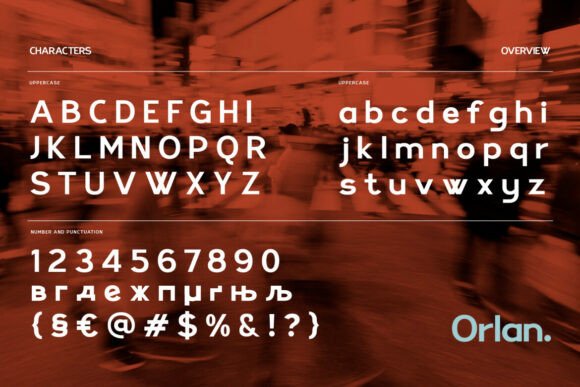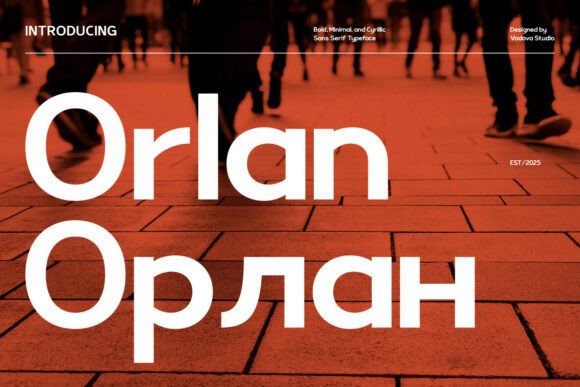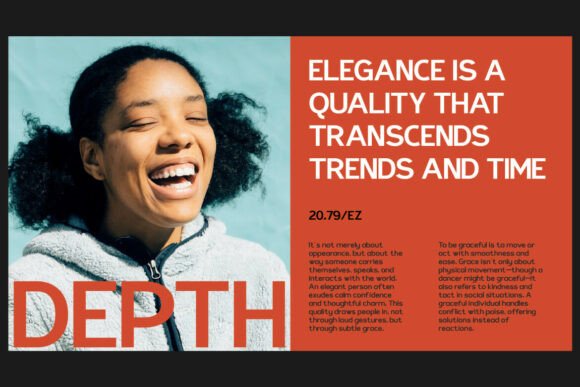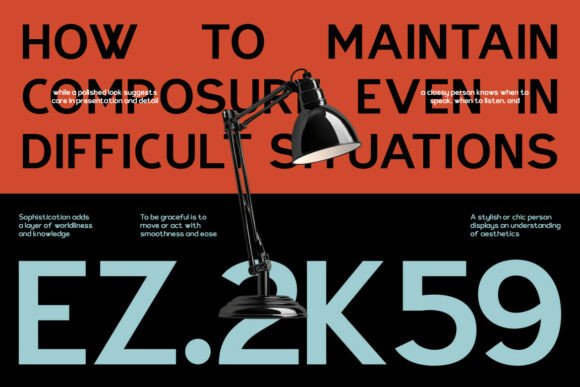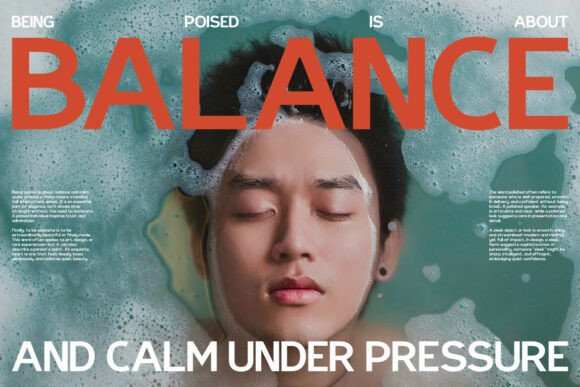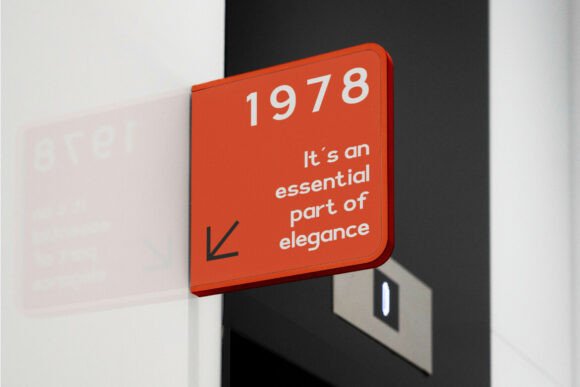
Introduction to Orlan Font Font
Fonts play a crucial role in design, and the Orlan Font font is a typeface that brings both character and versatility to any project. Whether you’re working on a branding project, a website, or a print design, the Orlan Font font offers a unique style that can elevate your work.
Orlan is a bold and unapologetically modern sans-serif font that commands attention with every character.
With a style that merges contemporary confidence and clean geometry, Orlan is built for high-impact communication Its energy is distinctly urban, editorial, and minimalistic—designed to make words not only legible but visually persuasive.
Key Features of Orlan Font Font
Why Choose Orlan Font Font?
The Orlan Font font is more than just a typeface – it’s a design tool that helps you communicate your message with style and clarity. Its unique character set and versatile design make it suitable for a wide range of applications, from elegant invitations to bold headlines.
With its carefully crafted letterforms and balanced proportions, the Orlan Font font ensures readability and visual appeal across all mediums.
What makes Orlan Font font special?
The Orlan Font font stands out with its unique design, exceptional readability, and versatility across various design applications.